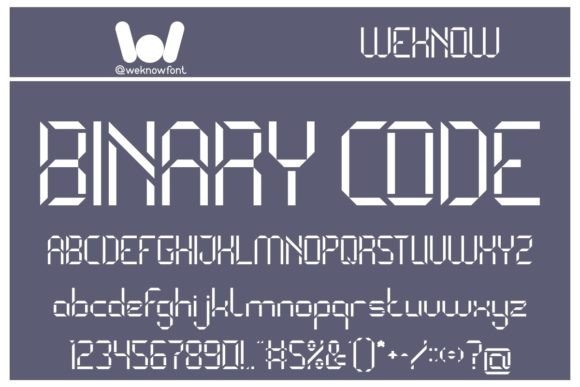
Binary Code Font: The Ultimate Sci-Fi LED Display Font for Creative Design Projects
In the world of design, fonts play a crucial role in conveying messages, expressing emotions, and creating visual identities. When it comes to sci-fi and futuristic designs, a font that screams innovation and technology is essential. That’s where the Binary Code Font comes in – a cutting-edge, LED display font designed to elevate your creative projects to the next level. In this article, we’ll dive into the world of Binary Code Font, exploring its features, applications, and benefits for various design projects.
What is Binary Code Font?
Binary Code Font is a sci-fi led display font that has been carefully crafted to resemble the aesthetic of binary code, with a futuristic and technological twist. The font features a unique, angular design with a mix of uppercase and lowercase letters, numbers, and symbols. Its sleek and modern appearance makes it perfect for designs that require a touch of futurism, innovation, and sophistication.
Key Features of Binary Code Font
- Unique Binary Code Design: Inspired by the binary code language, this font features a distinctive design that’s sure to grab attention.
- LED Display Style: The font’s LED display style gives it a futuristic and high-tech look, perfect for sci-fi and technology-related designs.
- Versatile and Customizable: Binary Code Font can be used for a wide range of design projects, from logos and headlines to posters and websites.
- Easy to Read: Despite its futuristic design, the font remains highly legible, making it suitable for body text and captions.
Applications of Binary Code Font
Binary Code Font is an incredibly versatile font that can be used for a wide range of creative design projects. Here are some of the most popular applications:
Design Projects that Benefit from Binary Code Font
- Logo and Logotype Design: Create a memorable and futuristic logo that represents your brand’s innovative spirit.
- Headlines and Titles: Use Binary Code Font to add a touch of sci-fi flair to your headlines, titles, and captions.
- Corporate Identity and Branding: Establish a strong brand identity with a font that communicates innovation, technology, and forward-thinking.
- Apparel Industry: Design trendy and eye-catching apparel, such as t-shirts, hoodies, and hats, with a font that’s sure to appeal to gamers, tech enthusiasts, and sci-fi fans.
- Posters, Flyers, and Brochures: Add a touch of futurism to your marketing materials and create eye-catching posters, flyers, and brochures.
- Movie, Game, and Music Projects: Use Binary Code Font to create captivating titles, credits, and promotional materials for movies, games, and music projects.
- Websites and Digital Media: Enhance your website or digital media projects with a font that’s optimized for digital displays.
- Social Media and YouTube: Create engaging social media content, YouTube videos, and Instagram posts with a font that’s sure to grab attention.
Benefits of Using Binary Code Font
So, why choose Binary Code Font for your design projects? Here are some benefits that make it an excellent choice:
Why Choose Binary Code Font?
- Unique and Memorable: Binary Code Font is unlike any other font, making it perfect for designs that require a distinctive touch.
- Flexibility and Versatility: Use the font for a wide range of design projects, from logos and headlines to posters and websites.
- Easy to Read and Understand: Despite its futuristic design, the font remains highly legible, making it suitable for body text and captions.
- Futuristic and Innovative: Binary Code Font is perfect for designs that require a touch of sci-fi, innovation, and technology.
- High-Quality and Professionally Designed: The font is designed with precision and attention to detail, ensuring a high-quality appearance in any design project.
Tips and Tricks for Using Binary Code Font
To get the most out of Binary Code Font, here are some tips and tricks to keep in mind:
Best Practices for Using Binary Code Font
- Use it Sparingly: While Binary Code Font is a stunning font, it’s best to use it sparingly to avoid overwhelming the design.
- Pair it with Other Fonts: Combine Binary Code Font with other fonts to create a unique and visually appealing design.
- Experiment with Colors: Play with different colors and gradients to enhance the font’s futuristic appearance.
- Consider the Context: Make sure the font is suitable for the design project’s context and audience.
In conclusion, Binary Code Font is an exceptional sci-fi led display font that’s perfect for creative design projects that require a touch of innovation, technology, and futurism. Its unique design, versatility, and ease of use make it an excellent choice for designers, artists, and marketers. Whether you’re working on a logo, headline, poster, or website, Binary Code Font is sure to elevate your design to the next level.